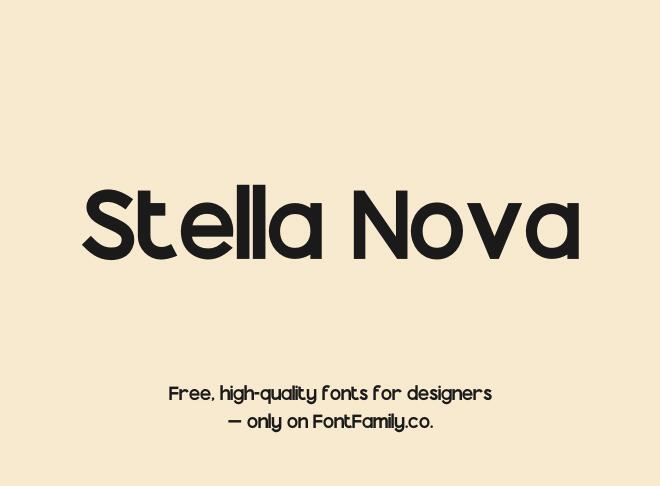
Stella Nova Font
Stella Nova Font is a modern, geometric typeface with a minimalistic yet highly impressive design. Originally created by the Creative Foundry, this font exhibits a perfect balance between simplicity and sophistication. With sharp, clean lines and a distinctive style, it is ideal for a wide range of design projects, including logos, headlines, banners, and more. Compared to other fonts in its category, Stella Nova stands out with its unique character and versatility. It's an excellent choice for designers who strive to create compelling, modern designs without sacrificing readability. The font is free for personal use, ensuring every designer can experience its unique style and elegance.